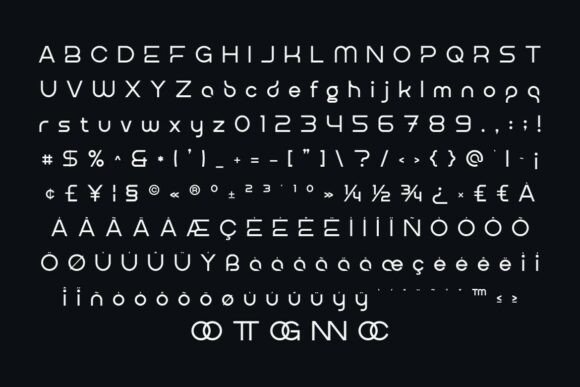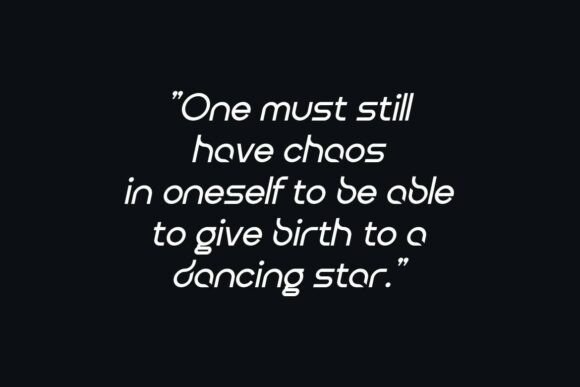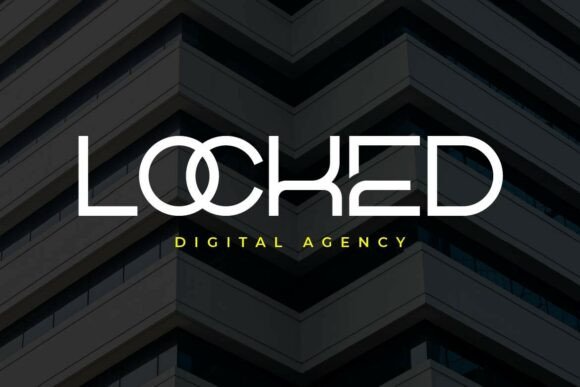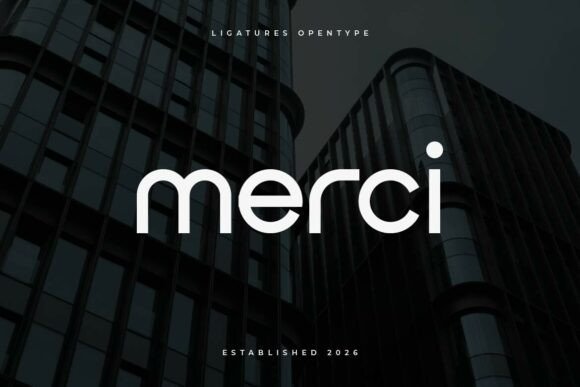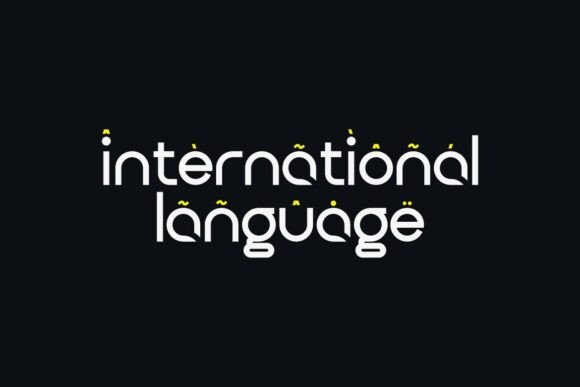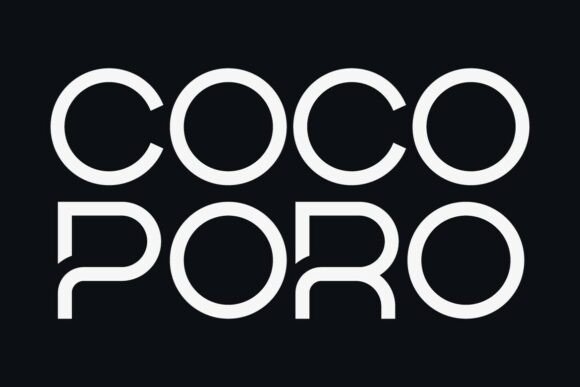
Introducing Goks Font: The Ultimate Sans Serif Logo Font for Bold Brand Presence
In the world of branding and logo design, a font plays a crucial role in conveying a brand’s personality and message. A well-crafted font can elevate a brand’s visual identity, making it more memorable and recognizable. This is where Goks Font comes into play. Designed to deliver bold personality and memorable brand presence, Goks is a creative sans serif logo font that has been making waves in the design community.
Clean Structure, Balanced Proportions, and Distinctive Character Details
Goks Font boasts a clean structure, balanced proportions, and distinctive character details that set it apart from other fonts. Its sans serif design ensures a modern and sleek look, while the balanced proportions provide a sense of harmony and stability. The distinctive character details add a touch of uniqueness, making Goks a standout font for logo design.
One of the key features of Goks Font is its ability to convey professionalism and creativity simultaneously. The font’s clean lines and balanced proportions give it a professional look, while the distinctive character details inject a dose of creativity. This makes Goks an ideal font for designers and crafters looking to create impactful logo designs that leave a lasting impression.
The Perfect Combination of Professionalism and Creativity
Goks Font is designed to provide the perfect combination of professionalism and creativity for impactful logo design. Whether you’re a designer looking to create a logo for a client or a crafter looking to brand your own products, Goks has got you covered. The font’s versatility makes it suitable for a wide range of design applications, from business cards to billboards.
One of the benefits of using Goks Font is its ability to adapt to different design styles. Whether you’re going for a minimalist look or a more elaborate design, Goks can be easily customized to fit your needs. The font’s clean structure and balanced proportions make it easy to pair with other design elements, ensuring a cohesive and visually appealing design.
Why Designers and Crafters Love Goks Font
So, why do designers and crafters love Goks Font? For starters, the font’s bold personality and memorable brand presence make it an excellent choice for creating logos that stand out. Additionally, Goks’ clean structure and balanced proportions ensure that the font is easy to read and recognize, even at small sizes.
Another reason designers and crafters love Goks Font is its versatility. The font can be used for a wide range of design applications, from digital designs to print materials. Whether you’re creating a logo for a website or a business card, Goks is an excellent choice.
Tips for Using Goks Font in Your Designs
In conclusion, Goks Font is a creative sans serif logo font that delivers bold personality and memorable brand presence. With its clean structure, balanced proportions, and distinctive character details, Goks provides the perfect combination of professionalism and creativity for impactful logo design. Whether you’re a designer or a crafter, Goks Font is an excellent choice for creating logos that stand out. So why not give Goks Font a try and see how it can elevate your brand’s visual identity?